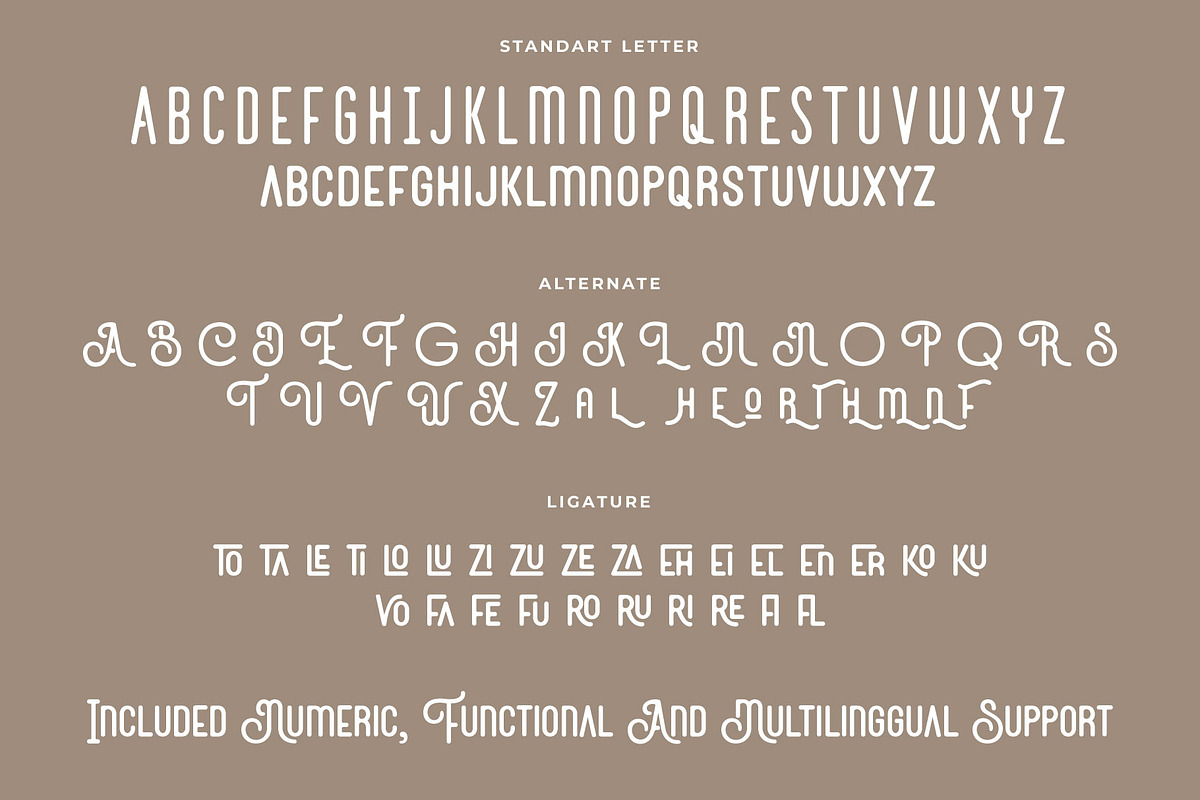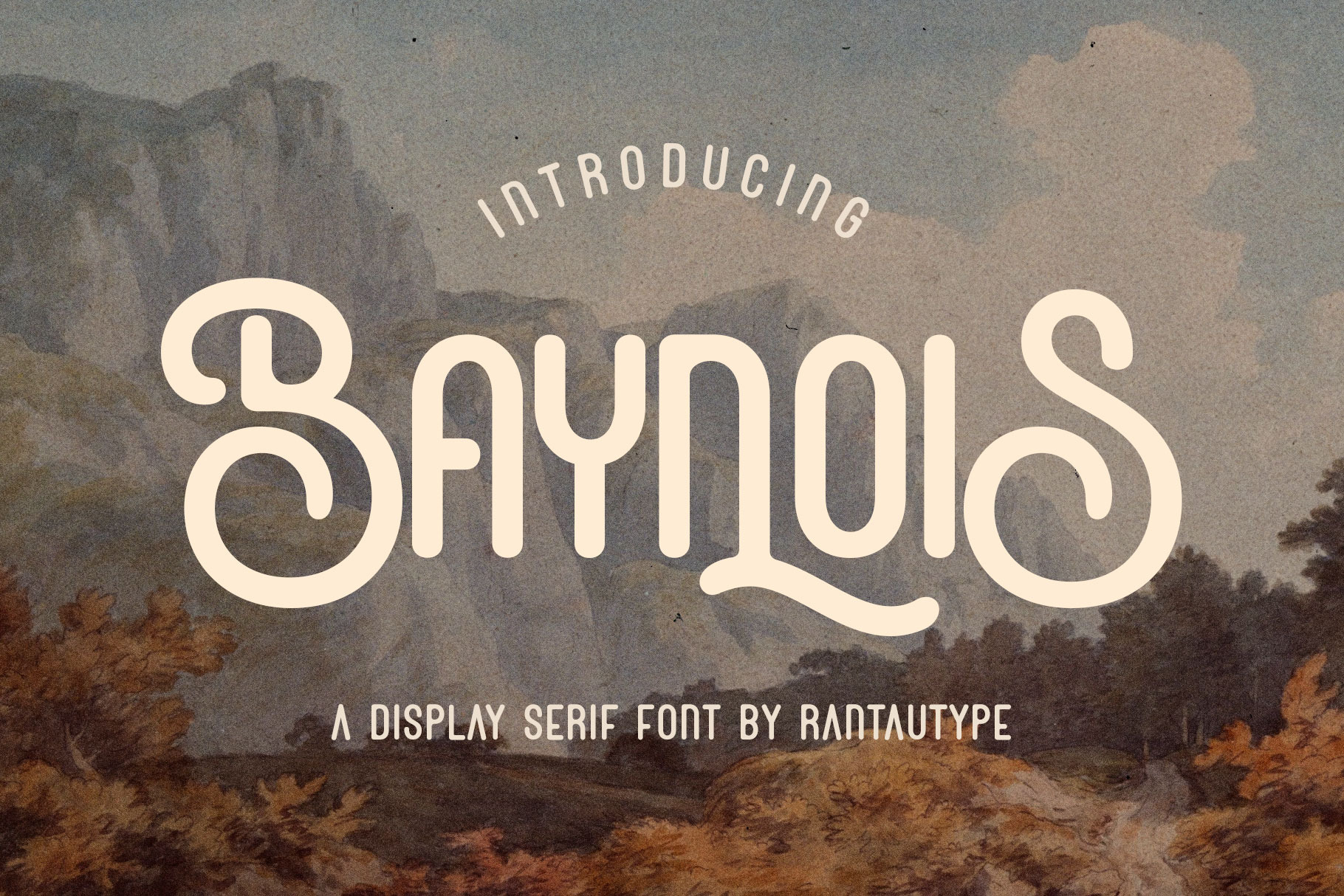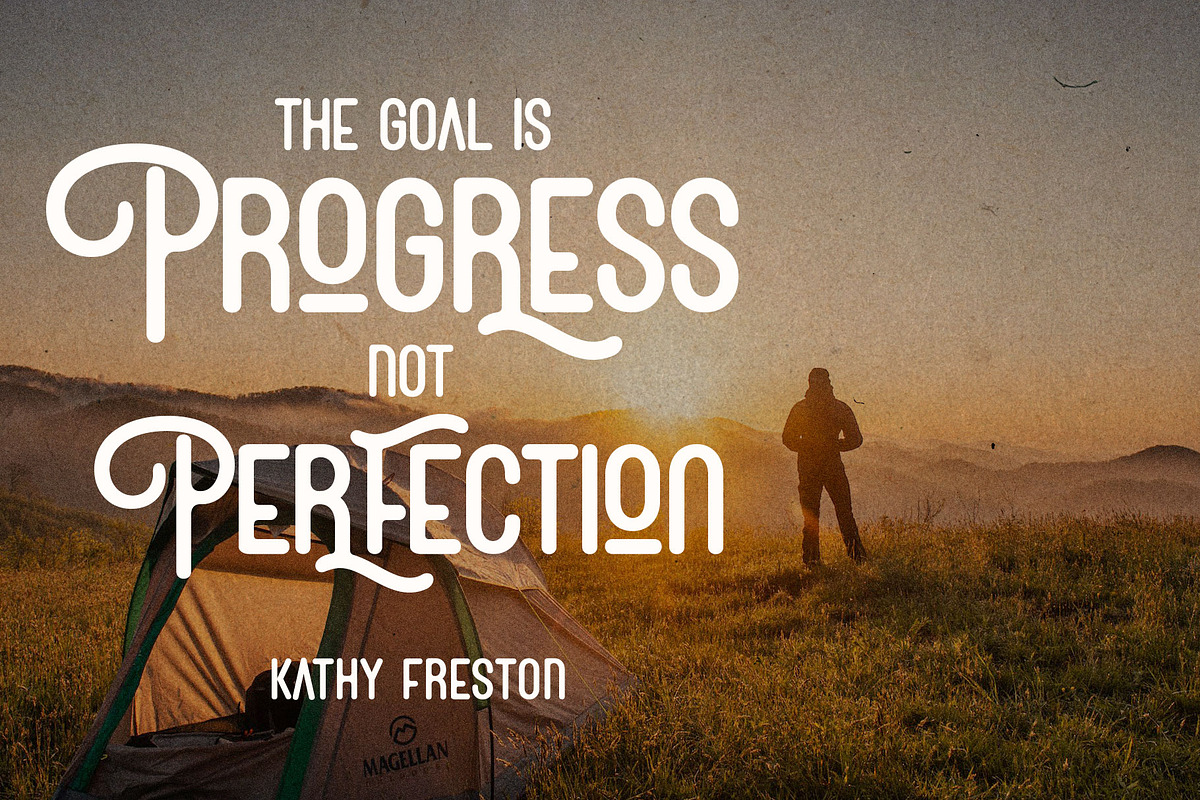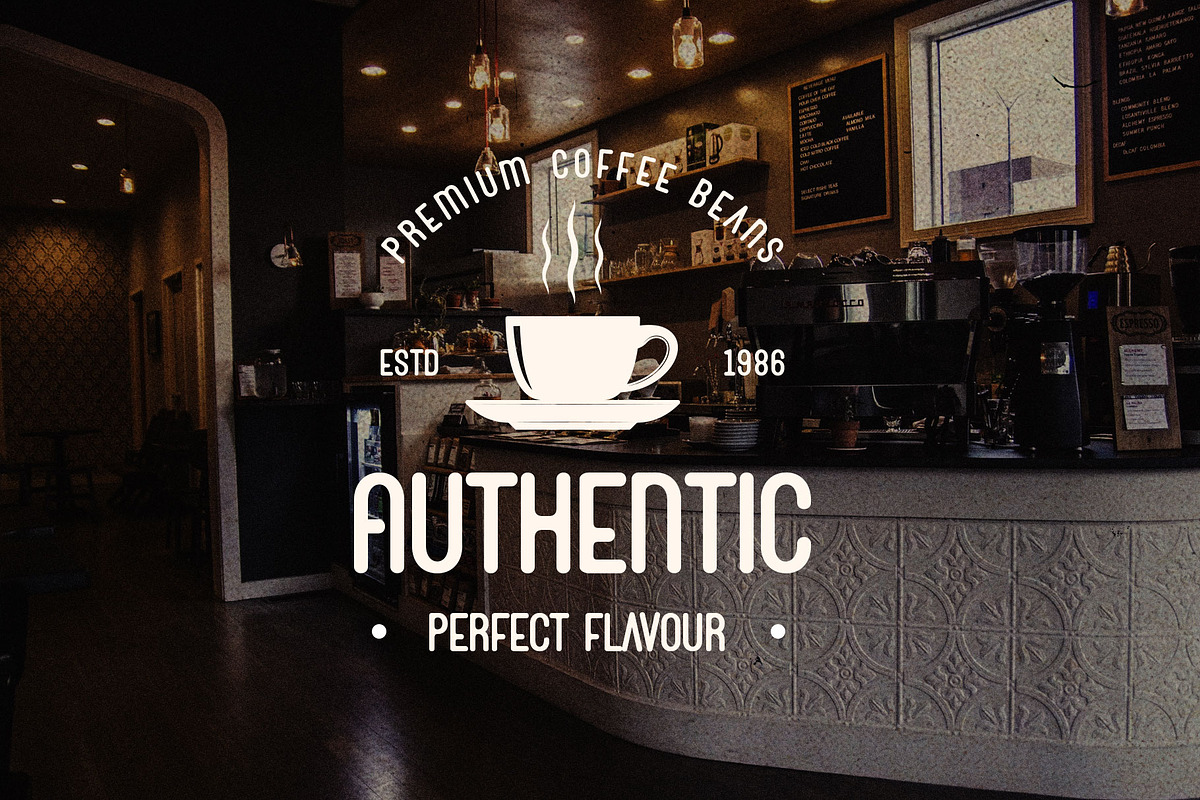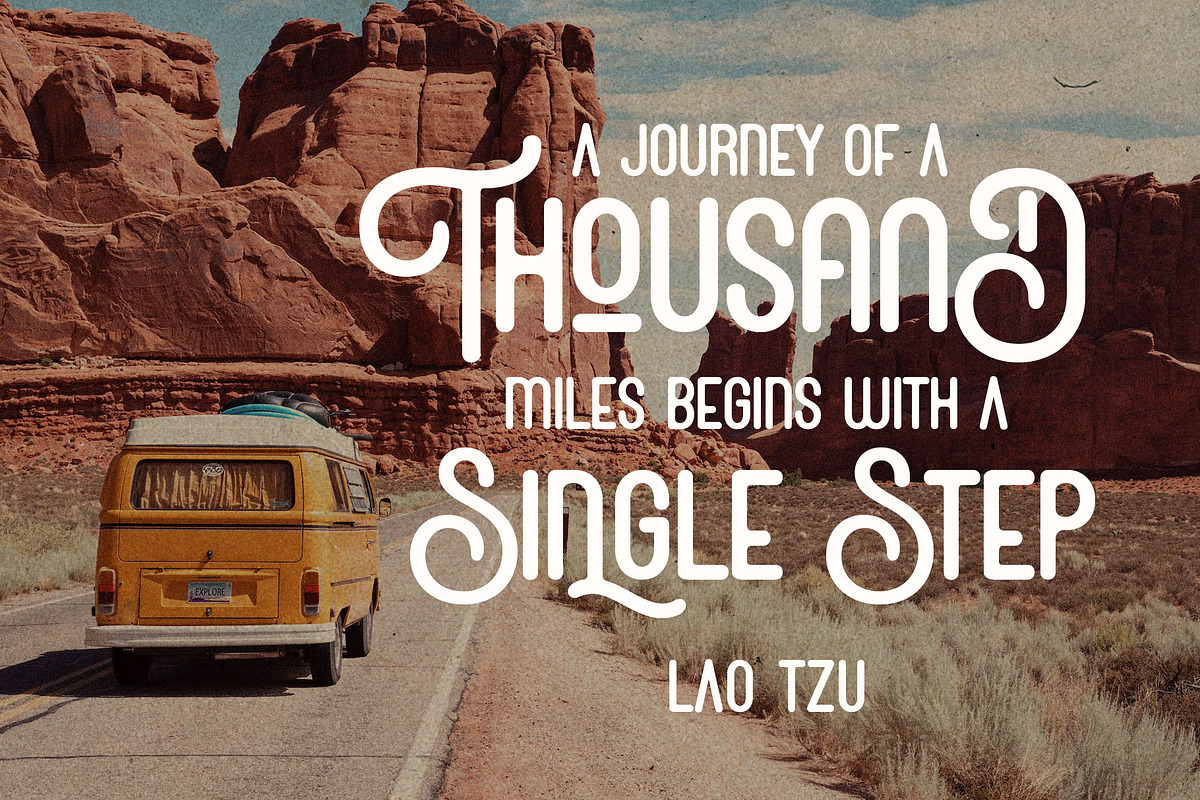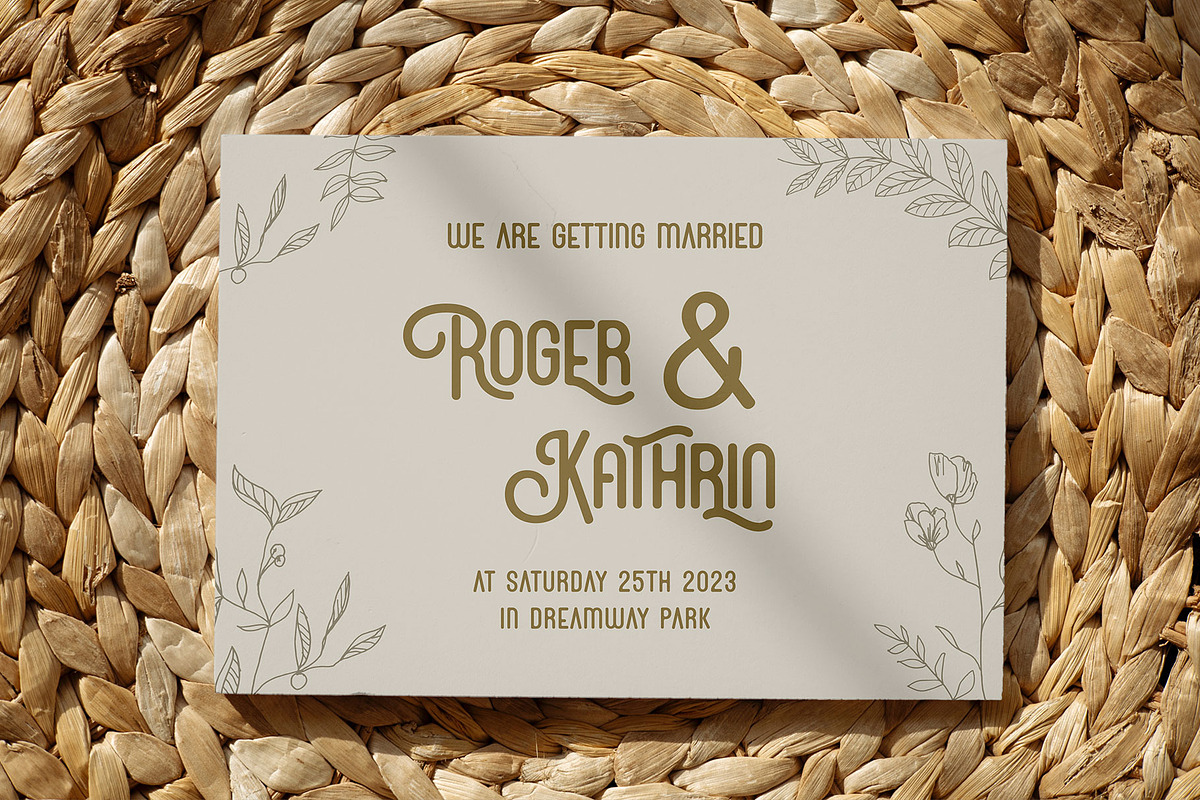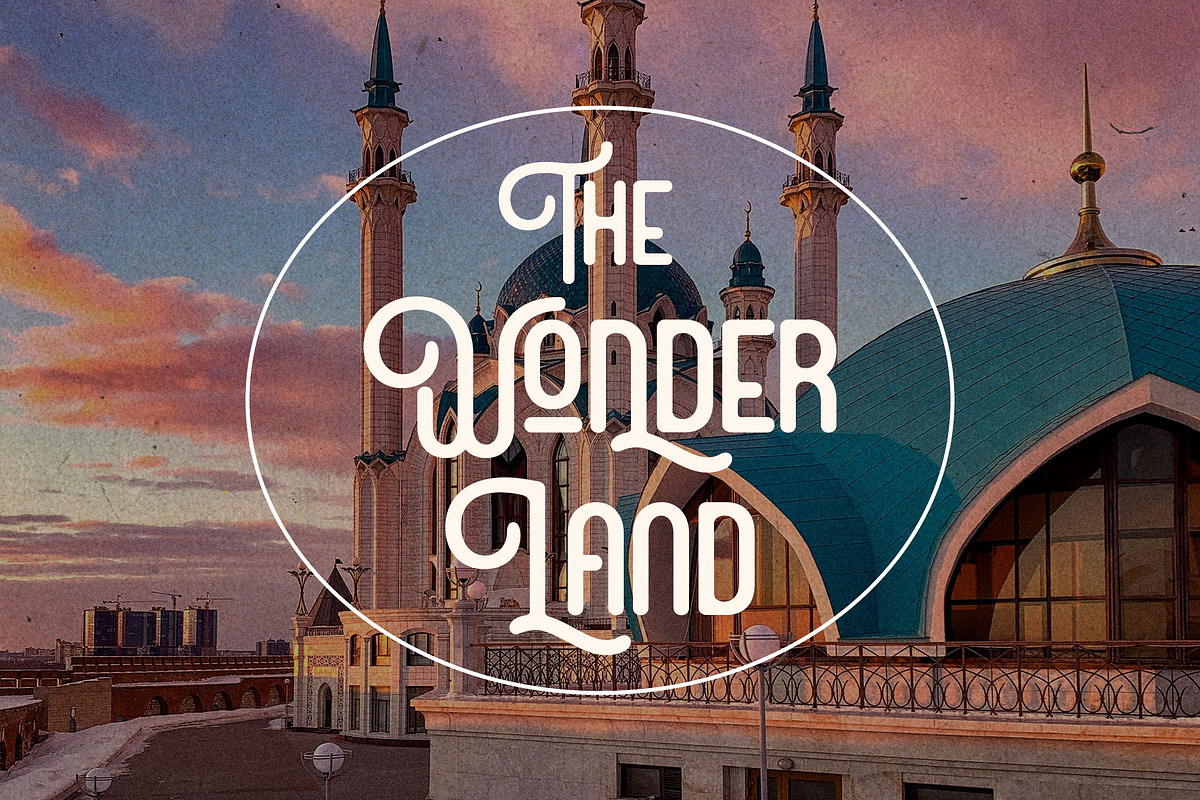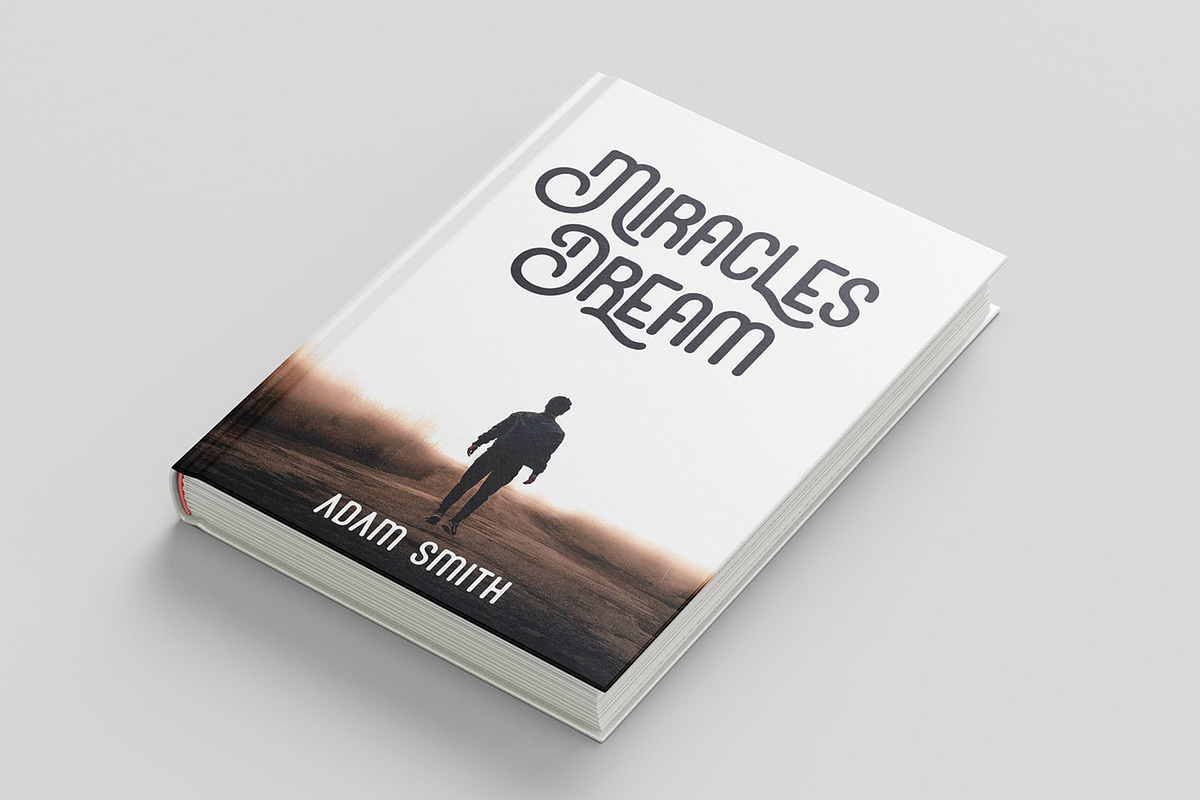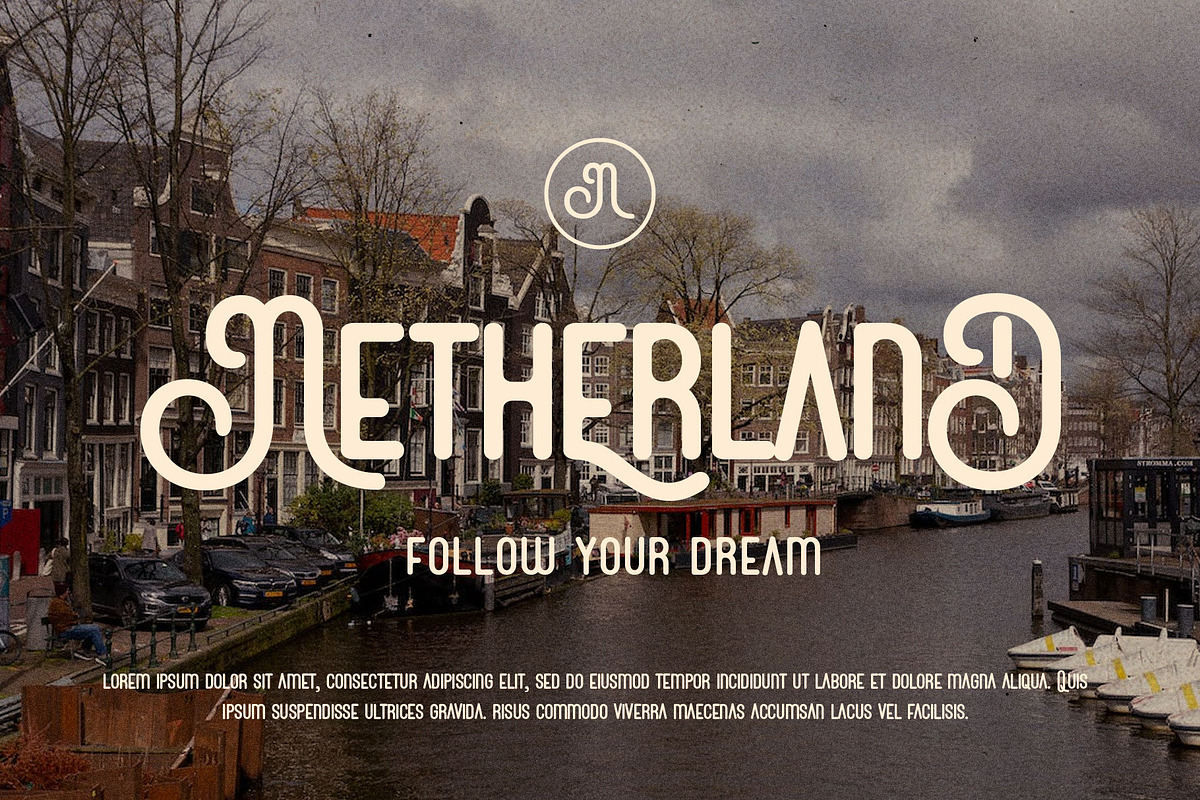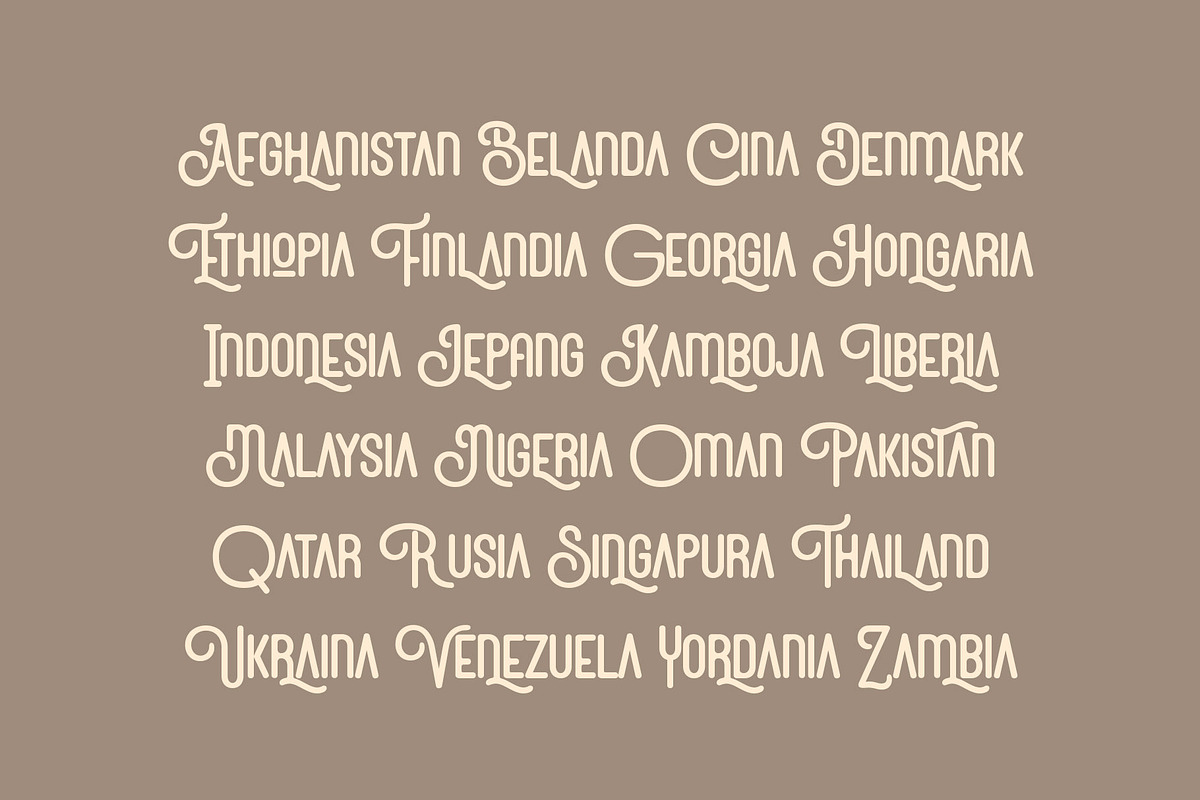
Baynois Vintage Monoline Font
Baynois is a handcrafted vintage monoline font.This font inspired by vintage signage it looks modern, soft, and sophisticated. Come with alternate and ligature you can mix to create a more stunning display. Baynois also support multilingual accent support.
Baynois separate in reguler and italic, is a beautiful choice for any creative endeavor, creating classy, modern, chic, lifestyle design such as logos, title, cover, branding, display and magazine, and more. Now you have can choice Baynois to elevate you desaign or branding.
- Standar character A-Z and a-z
- Alternate and Ligature
- Multilinggual support
- Opentype feature